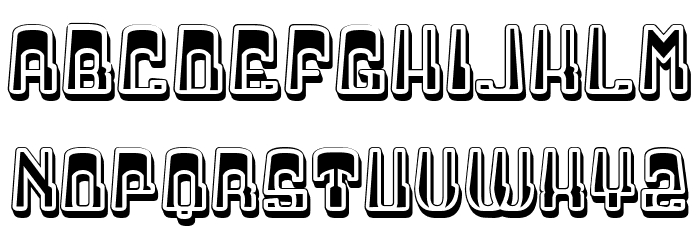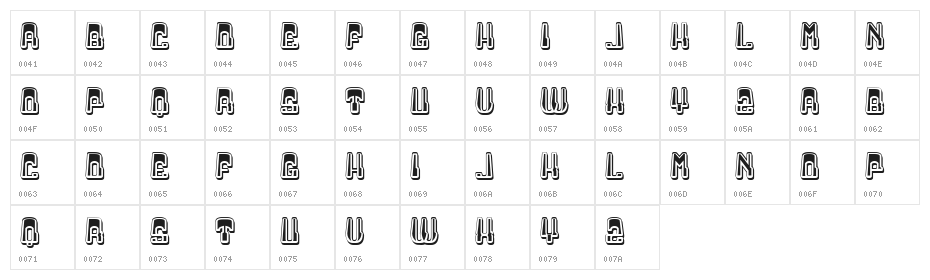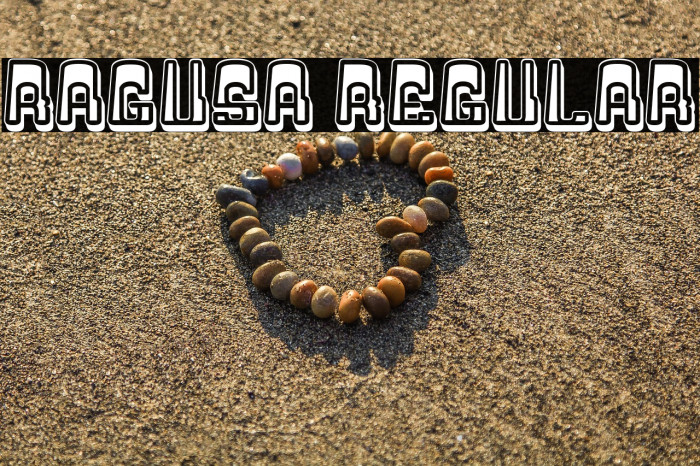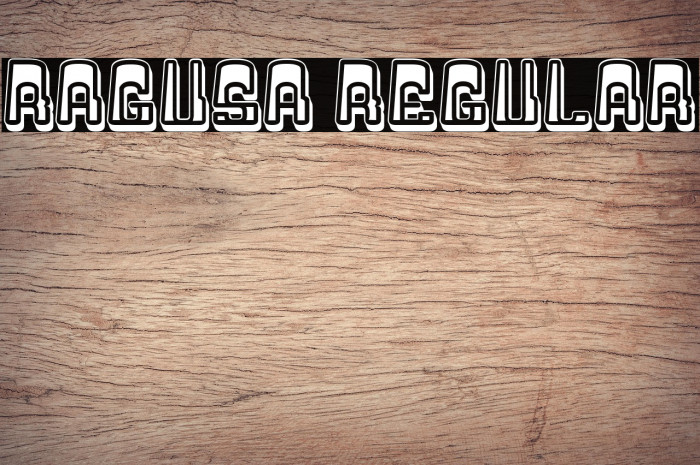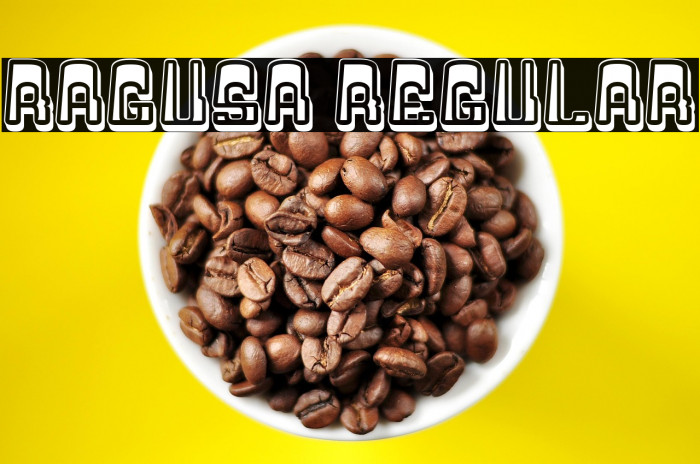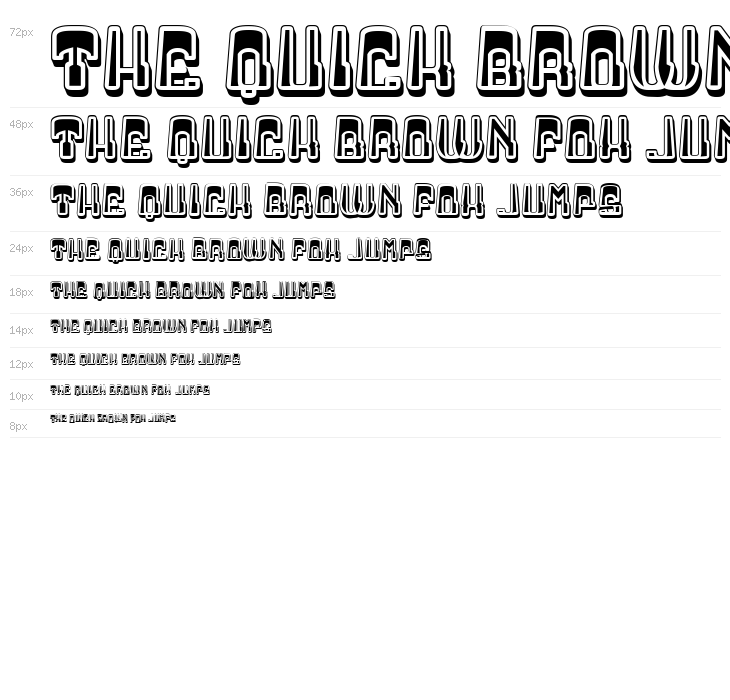
Ragusa Regular Font
Ragusa Regular Description
This font features a bold, decorative style with a unique outline and shadow effect that gives each character a three-dimensional appearance. The uppercase letters are prominently designed with a playful yet structured form, making them stand out. The font's geometric shapes and consistent line thickness contribute to its modern and eye-catching look. The characters are well-spaced, ensuring readability while maintaining a distinctive artistic flair. This font is ideal for projects that require a strong visual impact and a contemporary aesthetic.
| Proposed Projects | Ideal for posters, logos, headlines, and any project needing a striking, modern aesthetic. |